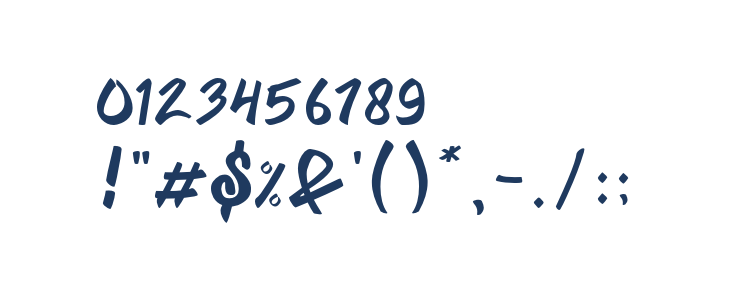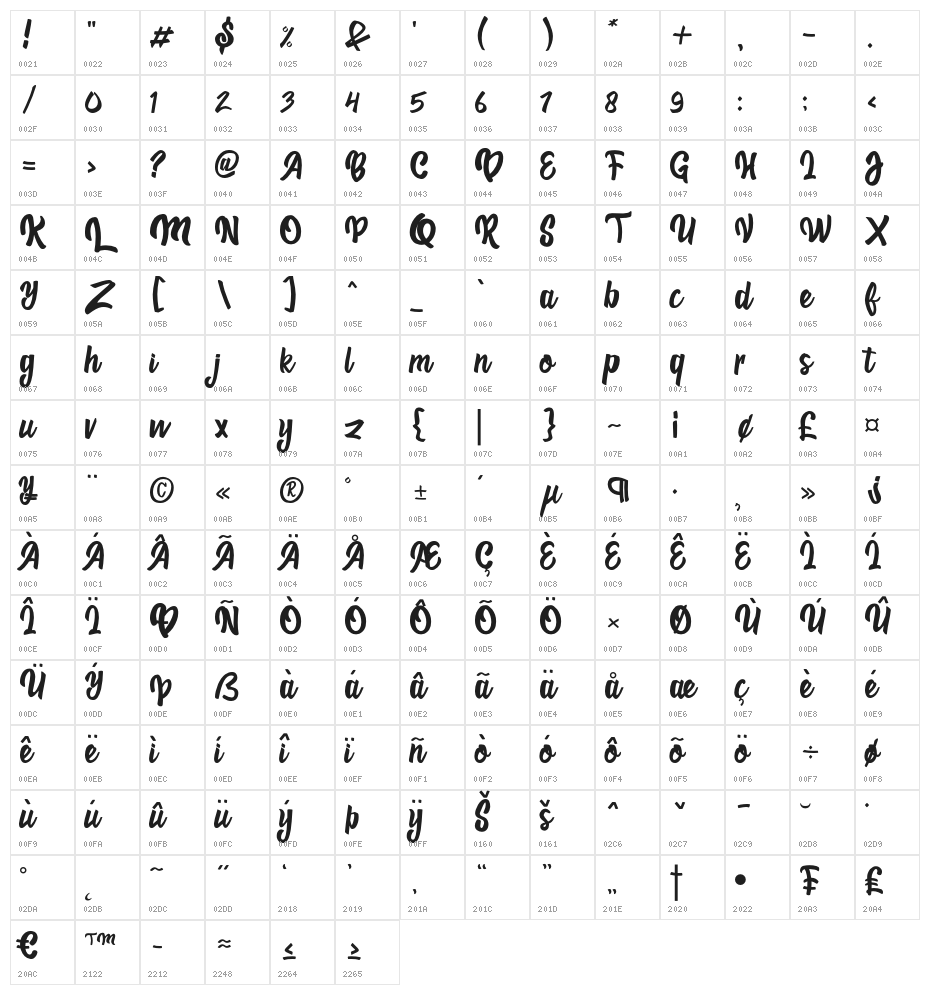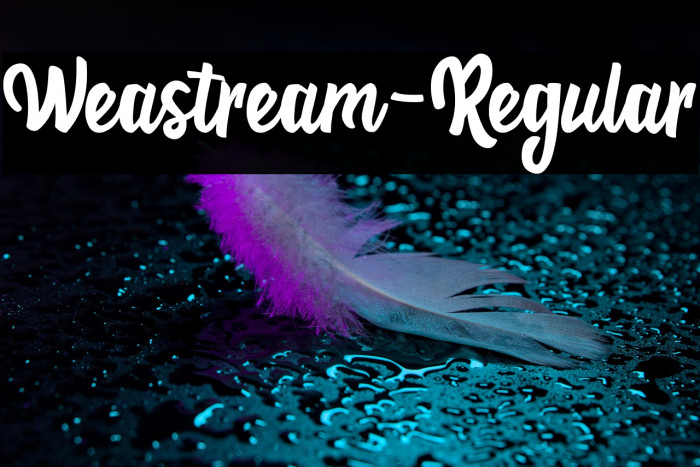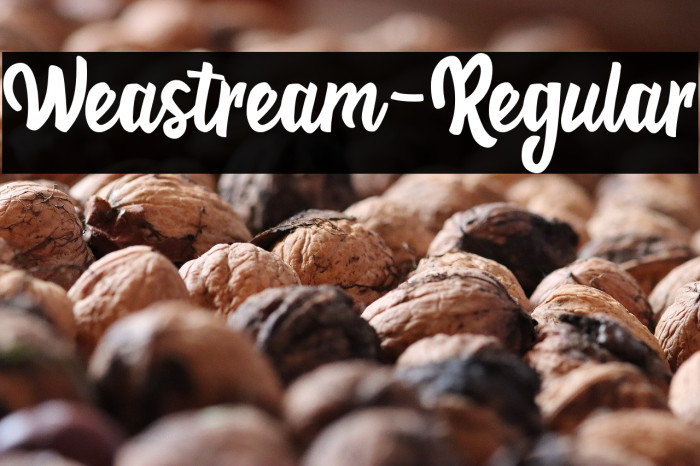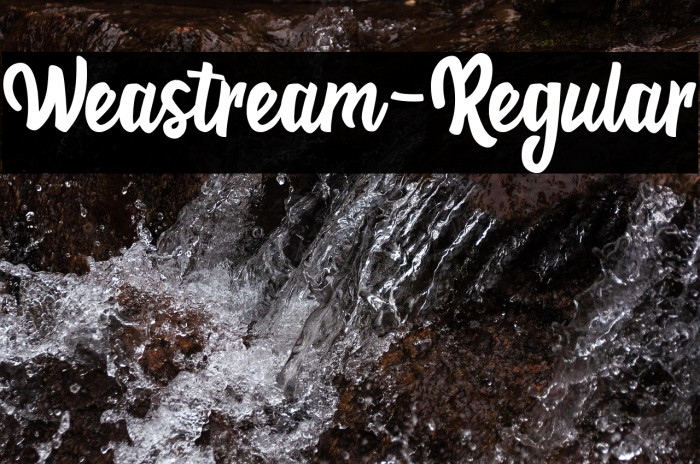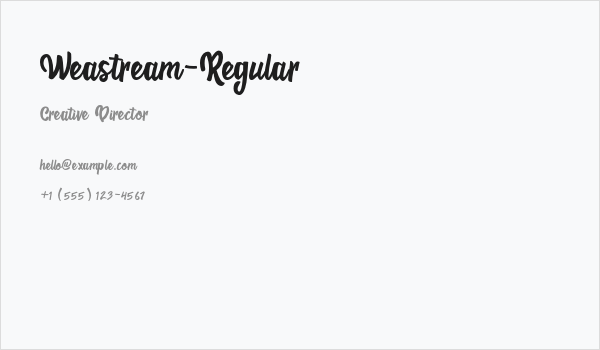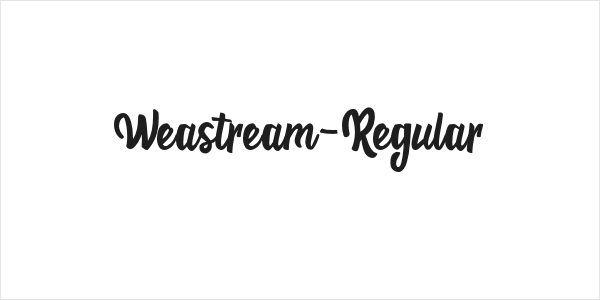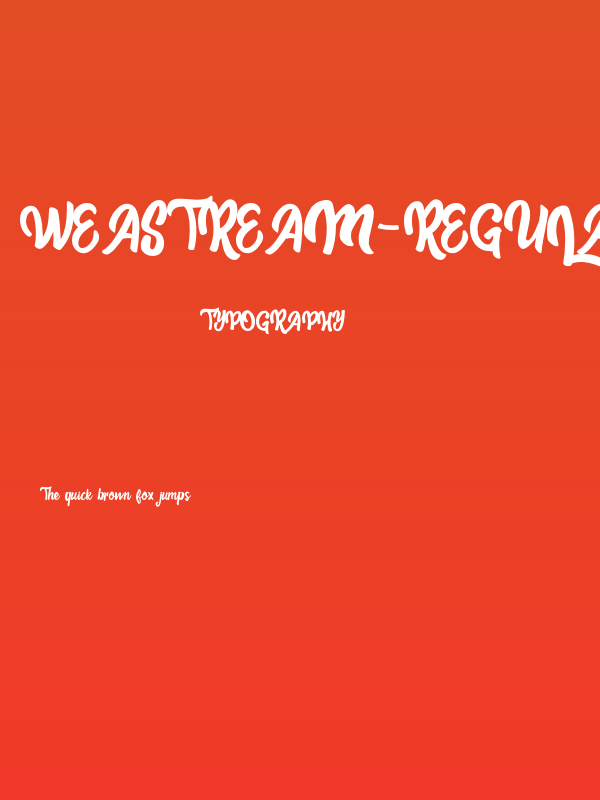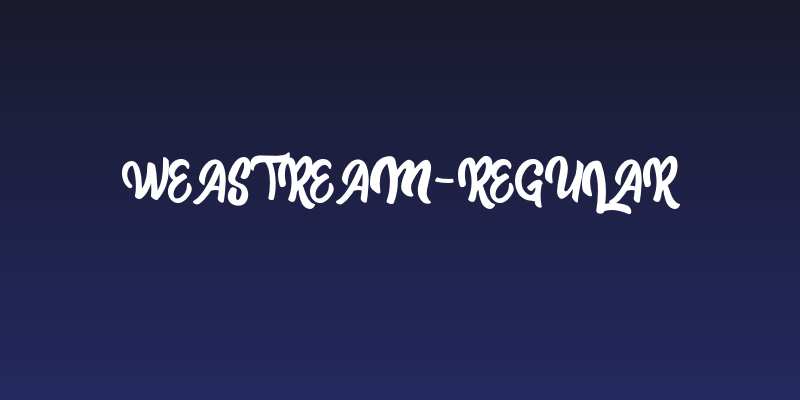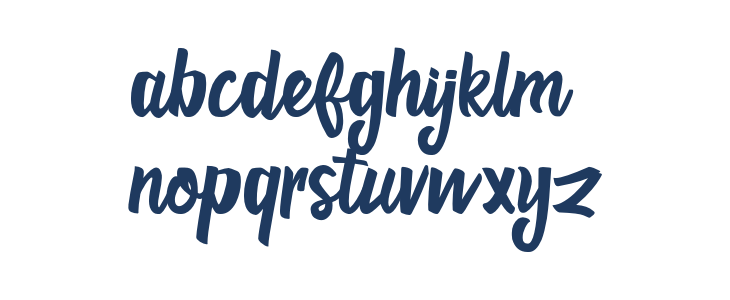
Weastream-Regular Font
Weastream-Regular Description
This font features a bold and expressive script style, characterized by its fluid and dynamic strokes. The letters are interconnected, creating a sense of movement and continuity. The uppercase letters are slightly larger and more pronounced, while the lowercase letters maintain a consistent flow. The numbers and special characters are designed to complement the overall style, with a playful yet elegant appearance. The font's thick strokes and rounded edges give it a friendly and approachable feel, making it suitable for a variety of creative applications.